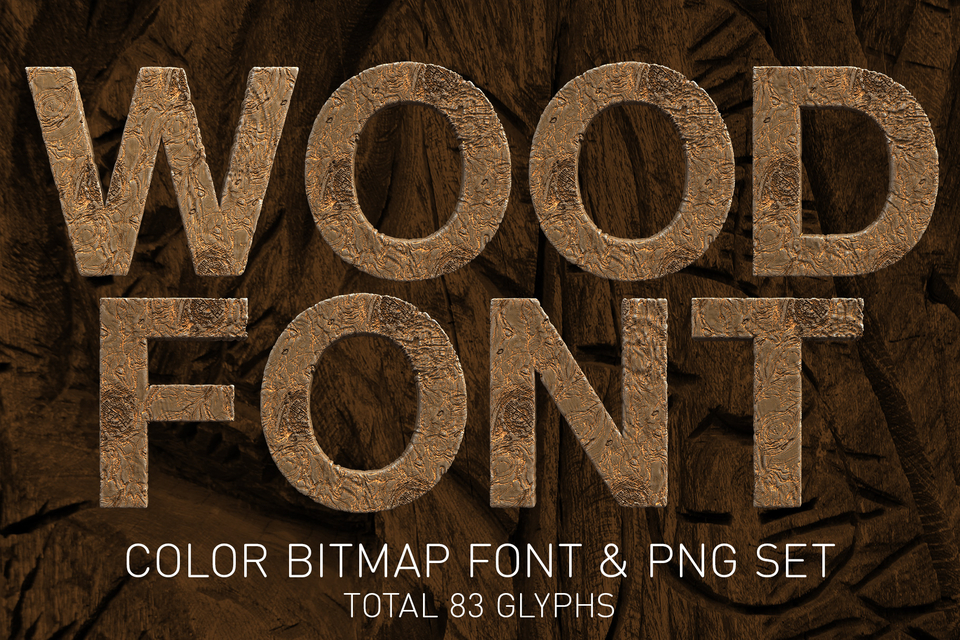
Wood Color Bitmap Font & PNGs
The Wood Bitmap SVG Font and transparent PNGs is a unique and versatile design asset that will add a touch of natural beauty and rustic charm to your projects. Featuring 83 beautifully crafted glyphs, each letter is designed to resemble carved wood, with a highly detailed and realistic appearance that is sure to impress.
Each glyph has a height of up to 700 pixels, making them highly detailed and perfect for use in high-resolution digital designs or print projects. Every glyph has been rendered in 3D software, ensuring that each one is of the highest quality.
With its carved wood design, this font is perfect for creating a range of designs, from natural-themed websites to logos and branding materials for outdoor or eco-friendly companies. The versatility of the font means it can also be used for a wide range of design projects, including posters, invitations, and more.
Try the Wood Bitmap SVG Font and transparent PNGs and bring a touch of natural beauty and rustic charm to your designs.